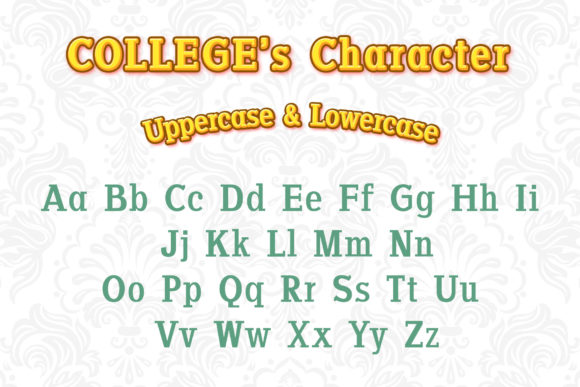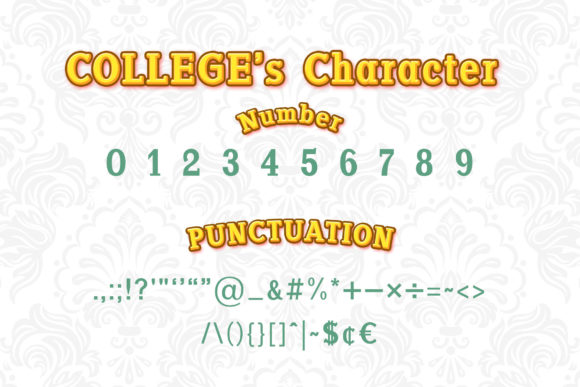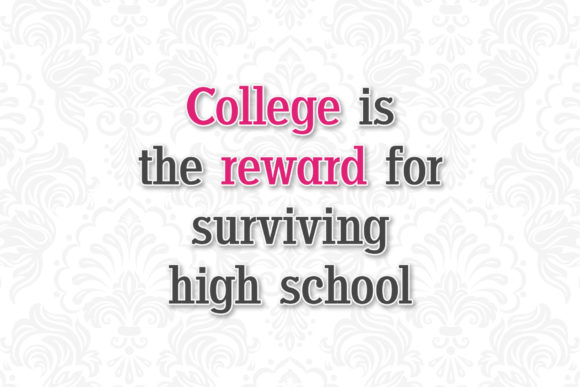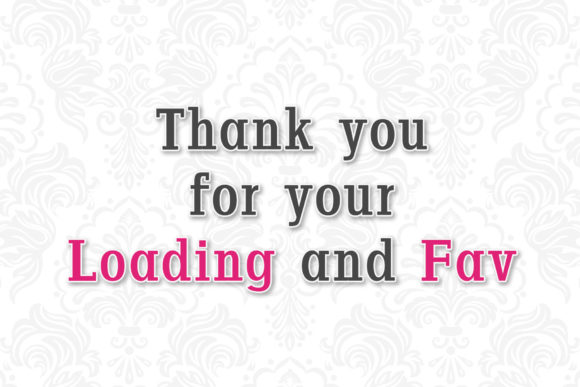
Introducing College Font: Elevate Your Designs with a Bold and Authentic Serif
Are you tired of using the same old fonts in your designs? Look no further than College Font, a bold and authentic serif font that’s sure to make your creative projects stand out. With its classic and timeless look, College Font is the perfect addition to any designer’s toolkit.
The Characteristics of College Font
College Font is a serif font, which means it features small lines or flourishes at the ends of its letters. This gives it a distinctive and elegant look that’s perfect for a wide range of design applications. The font is also bold, making it ideal for headlines, titles, and other applications where you want to grab the viewer’s attention.
One of the key benefits of College Font is its versatility. It can be used in a wide range of projects, from academic papers and journals to marketing materials and websites. Whether you’re a designer, craftsperson, or simply someone who loves to create, College Font is a great choice.
Why Choose College Font?
So why should you choose College Font for your next project? Here are just a few reasons:
- Authentic look: College Font has a classic, timeless look that’s perfect for creating designs that feel traditional and authentic.
- Bold and eye-catching: The font’s bold style makes it perfect for headlines, titles, and other applications where you want to grab the viewer’s attention.
- Versatile: College Font can be used in a wide range of projects, from academic papers to marketing materials.
- Elegant: The font’s serif style gives it an elegant and sophisticated look that’s perfect for creating designs that feel refined and cultured.
How to Use College Font in Your Designs
Using College Font in your designs is easy. Here are a few tips to get you started:
- Pair it with a sans-serif font: For a classic look, pair College Font with a sans-serif font like Arial or Helvetica.
- Use it for headlines: College Font is perfect for headlines and titles, where its bold style can really make an impact.
- Experiment with different colors: College Font looks great in a wide range of colors, so don’t be afraid to experiment and find the perfect shade for your design.
If you’re a designer or crafter, here are a few tips for using College Font in your work:
- Use it to create a cohesive look: College Font is a versatile font that can be used in a wide range of projects. Use it to create a cohesive look across multiple designs.
- Experiment with different styles: College Font comes in a range of styles, from bold to regular. Experiment with different styles to find the one that works best for your design.
- Don’t be afraid to get creative: College Font is a great starting point for your designs, but don’t be afraid to get creative and add your own unique touches.
College Font is a bold and authentic serif font that’s perfect for designers and crafters who want to create stunning designs. With its classic look, versatility, and elegant style, College Font is a great addition to any designer’s toolkit. Whether you’re working on a academic paper, marketing materials, or simply a creative project, College Font is sure to make your designs stand out.